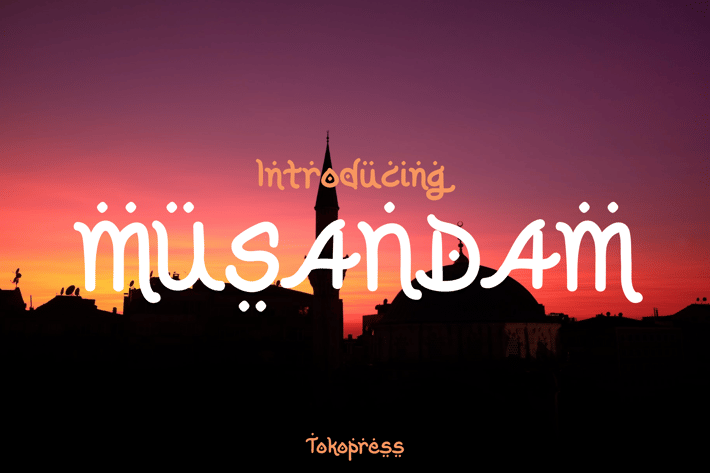
Musandam - Arabic look font
Musandam is a modern Arabic-inspired display font that blends decorative flair with flowing, organic rhythm—ideal for spiritual, religious, or cultural design needs. With a hand-crafted, soft contrast feel and whimsical strokes that echo Arabic calligraphy, Musandam delivers expressive warmth and graceful presence.
Its slightly exaggerated terminals, curling curves, and natural spacing evoke a spiritual yet inviting tone, perfect for conveying emotional depth in Islamic content or Middle Eastern themes. Designed with balance and clarity in mind, it offers an artistic but legible alternative to traditional Latin fonts.
Whether you're creating Ramadan Mubarak posters, dua quote cards, mosque architecture infographics, or tourism flyers for Islamic destinations, Musandam sets the perfect tone. This font works beautifully in Instagram content, editorial headers, documentary titles, and religious-themed product branding.
Use it to spark emotion, deliver spiritual elegance, or celebrate cultural identity through type.
- Arabic visual aesthetic with Latin alphabet coverage
- Spiritual tone for Islamic or cultural design
- Perfect for quotes & messages — poetic and expressive
- Smooth curvature & balance for modern elegance
- Islamic posters & event invites
- Mosque architecture features
- Travel content (e.g., Sahara tours, Turkey, Mecca)
- Religious quote cards, YouTube thumbnails
- Spiritual social media branding